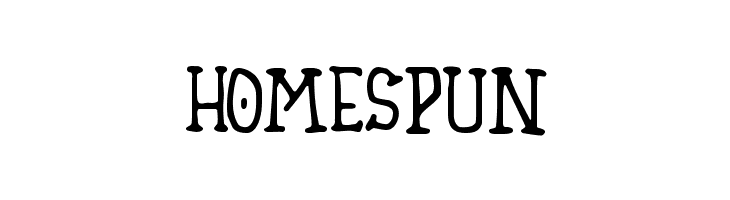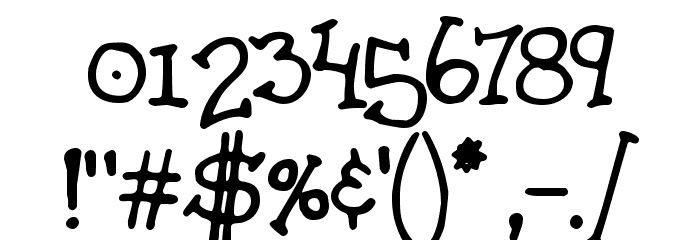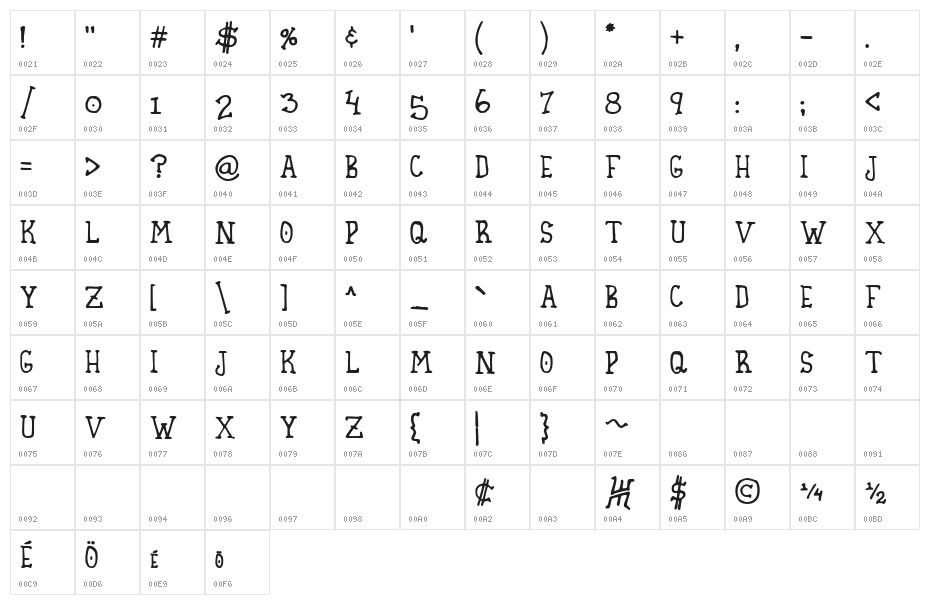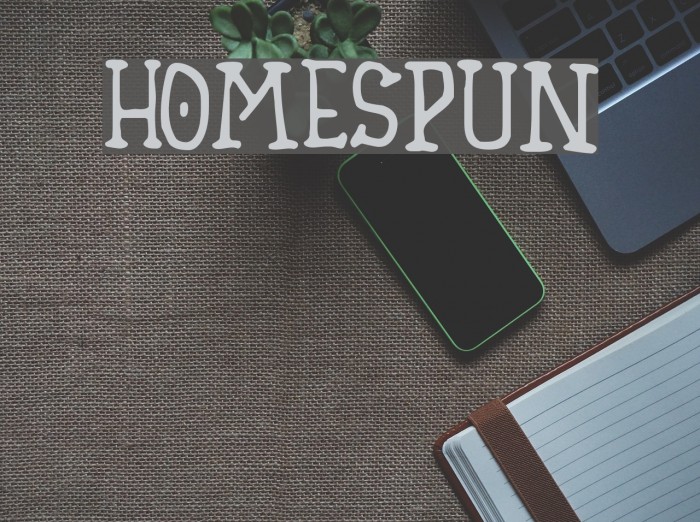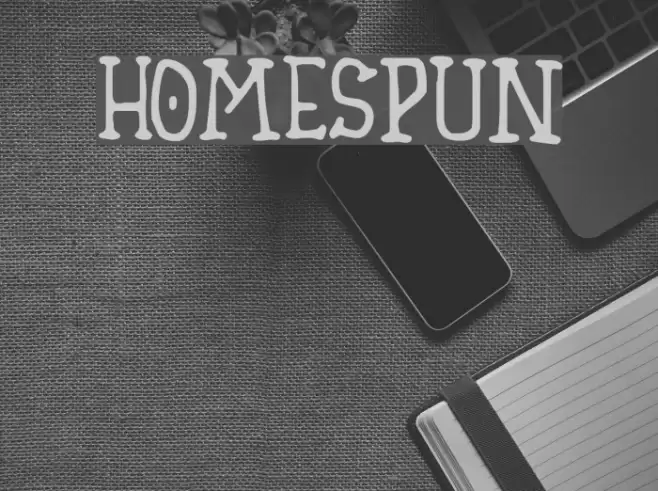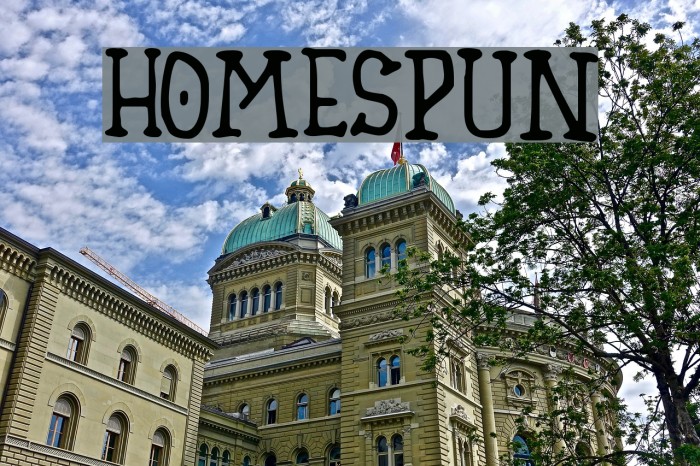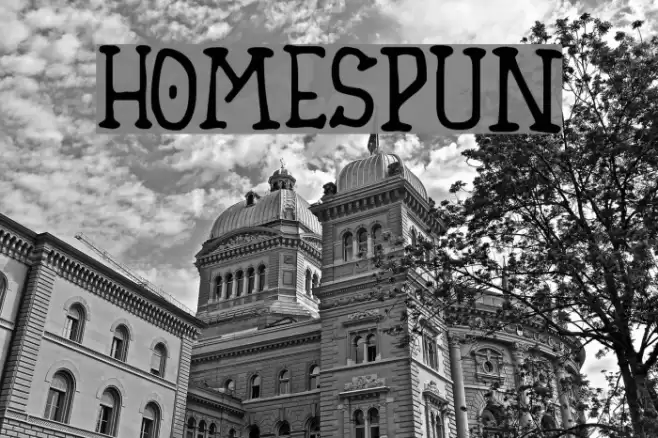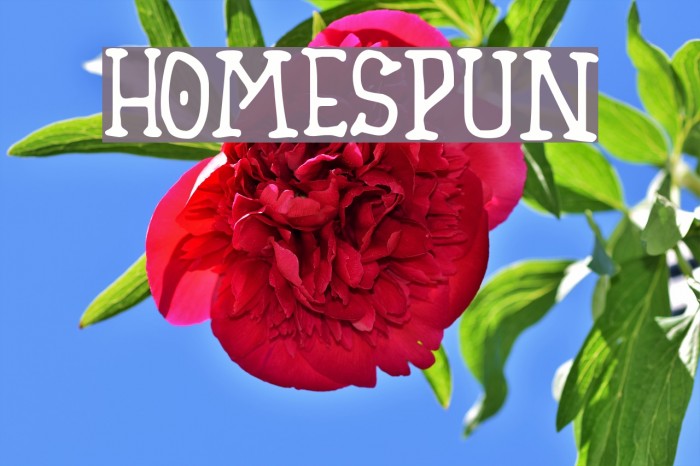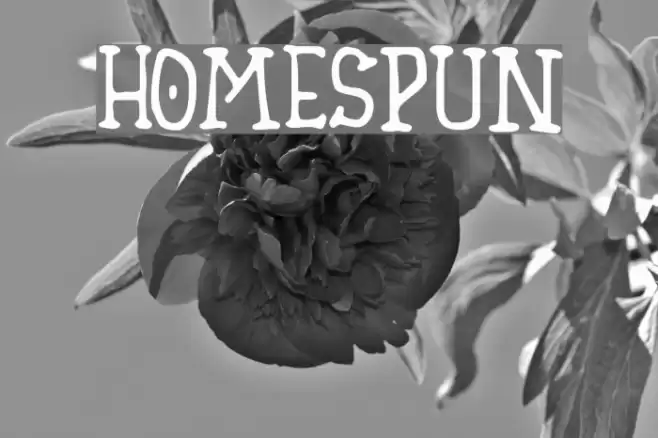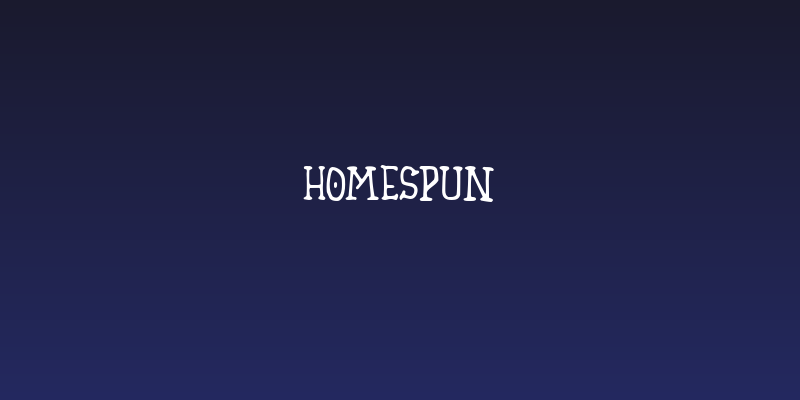
Homespun Font
Homespun Description
This font exudes a handcrafted, rustic charm with its playful and slightly irregular letterforms. The characters have a whimsical, hand-drawn quality, featuring uneven strokes and a casual, friendly appearance. The uppercase and lowercase letters maintain a consistent style, with rounded edges and a slightly bouncy baseline that adds to the font's approachable nature. The numerals and special characters follow the same design ethos, ensuring a cohesive look across all glyphs. This font's unique personality makes it ideal for projects that require a touch of warmth and individuality.
| Proposed Projects | Perfect for children's books, greeting cards, DIY projects, and rustic-themed branding. |